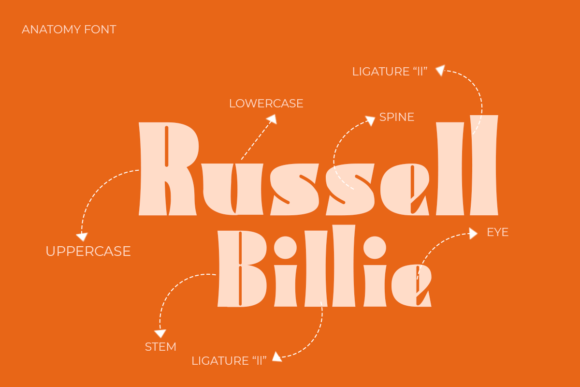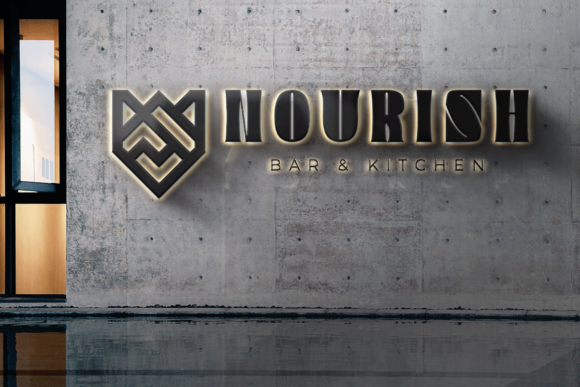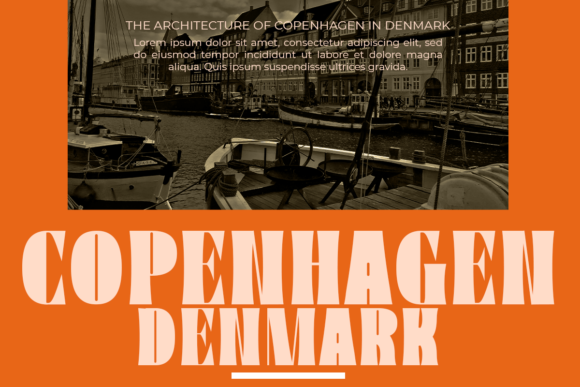
Introduction to Nalla Font
Have you ever been working on a creative project, pouring your heart and soul into it, only to feel like something’s missing? A spark of inspiration hits, and you envision the perfect typography to elevate your design. That’s exactly what happened when I stumbled upon the Nalla Font. Its bold and thick lettered display font is an instant game-changer, capable of taking any creation to the next level.
As a valuable design resource, the Nalla Font offers endless possibilities for creative expression. Whether you’re working on a graphic design project or crafting a unique visual identity, this font is sure to make a statement. With its high-quality design and versatility, it’s no wonder why the Nalla Font has become a go-to choice for designers seeking to add a touch of sophistication to their work.
Key Features of Nalla Font
- High-quality design resource with a transparent background, ideal for creative projects
- Unique, modern font with a clean and elegant design, suitable for various applications, including logos, branding, and digital art
- Part of a larger font family, offering flexibility and versatility for designers working on complex creative projects
Honest Review: Nalla Font
I recently came across the Nalla Font, a unique design resource that caught my attention. The first thing I noticed was the high quality of the font, which is perfect for any creative project.
- ✨ Elegant and modern design that’s perfect for modern branding
- ✨ High-quality, clear and legible text
The Nalla Font also features a transparent background, which is ideal for logos, icons, and other design elements that require a subtle look.
- ⚠️ Some users may find the font too bold or overpowering for certain designs
Overall, I’m impressed with the Nalla Font, and I think it’s a great addition to any designer’s toolkit. While it may have some limitations, its high quality and modern design make it an excellent choice for any creative project.
Nalla Font
Nalla Font is suitable for a variety of creative projects, including logos, brochures, business cards, and social media graphics. It’s also a great resource for designers and artists who need a versatile font with a transparent background.